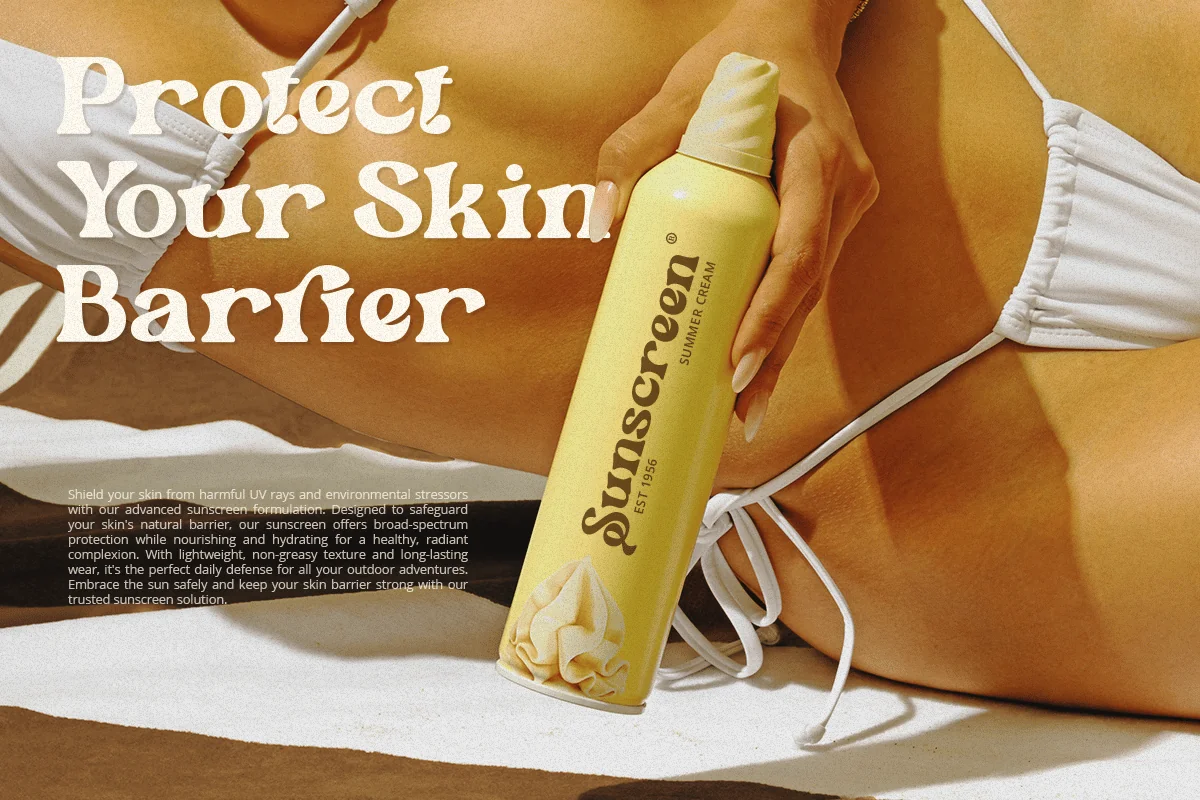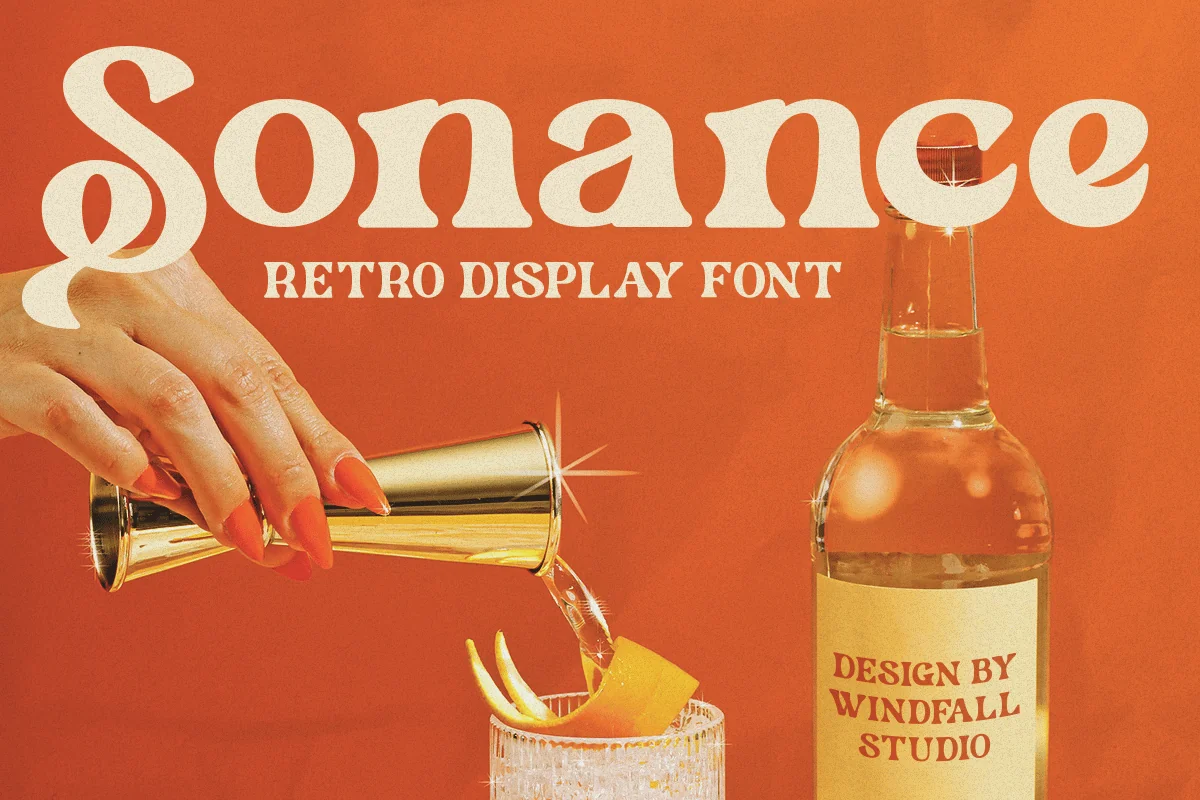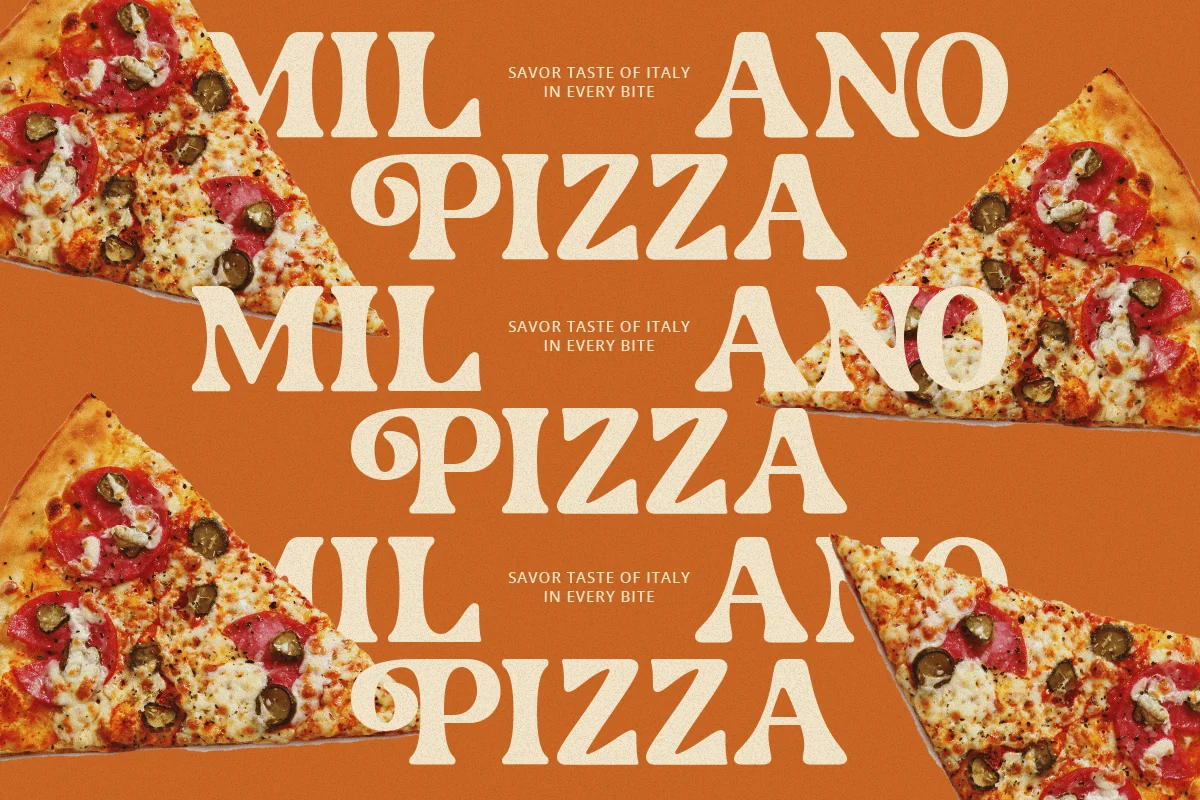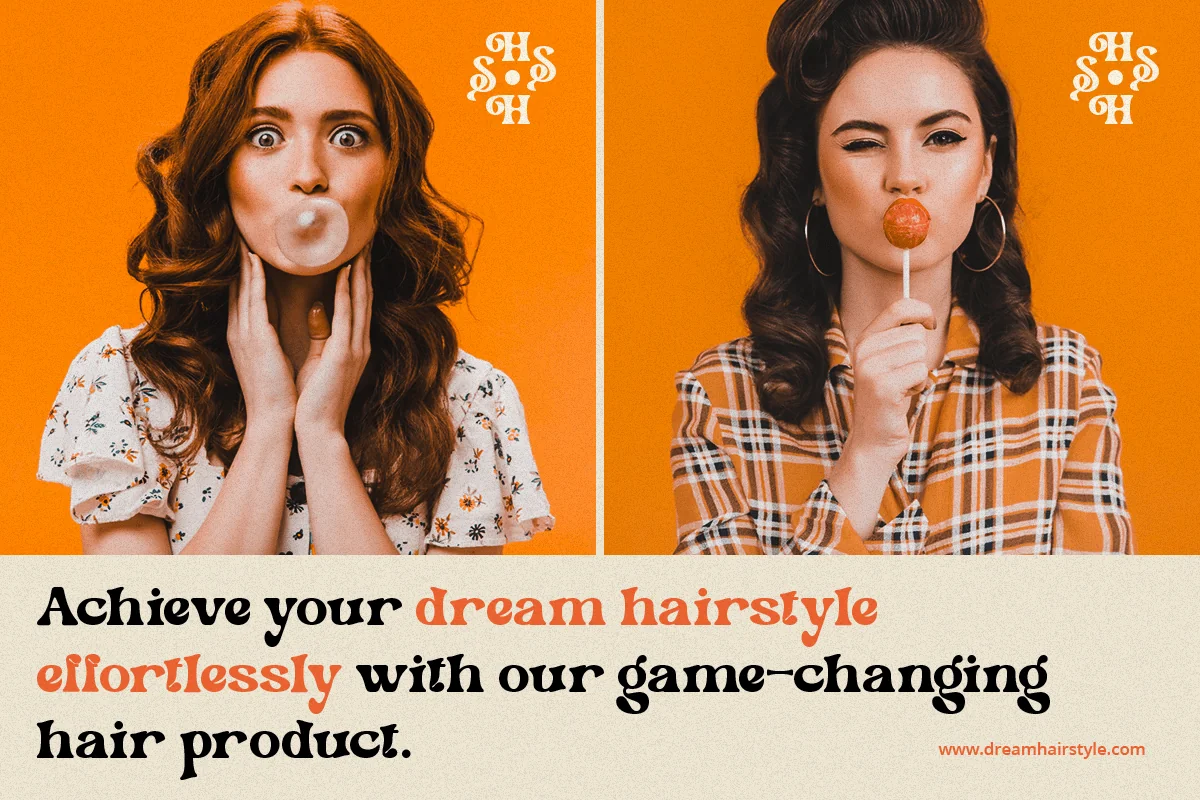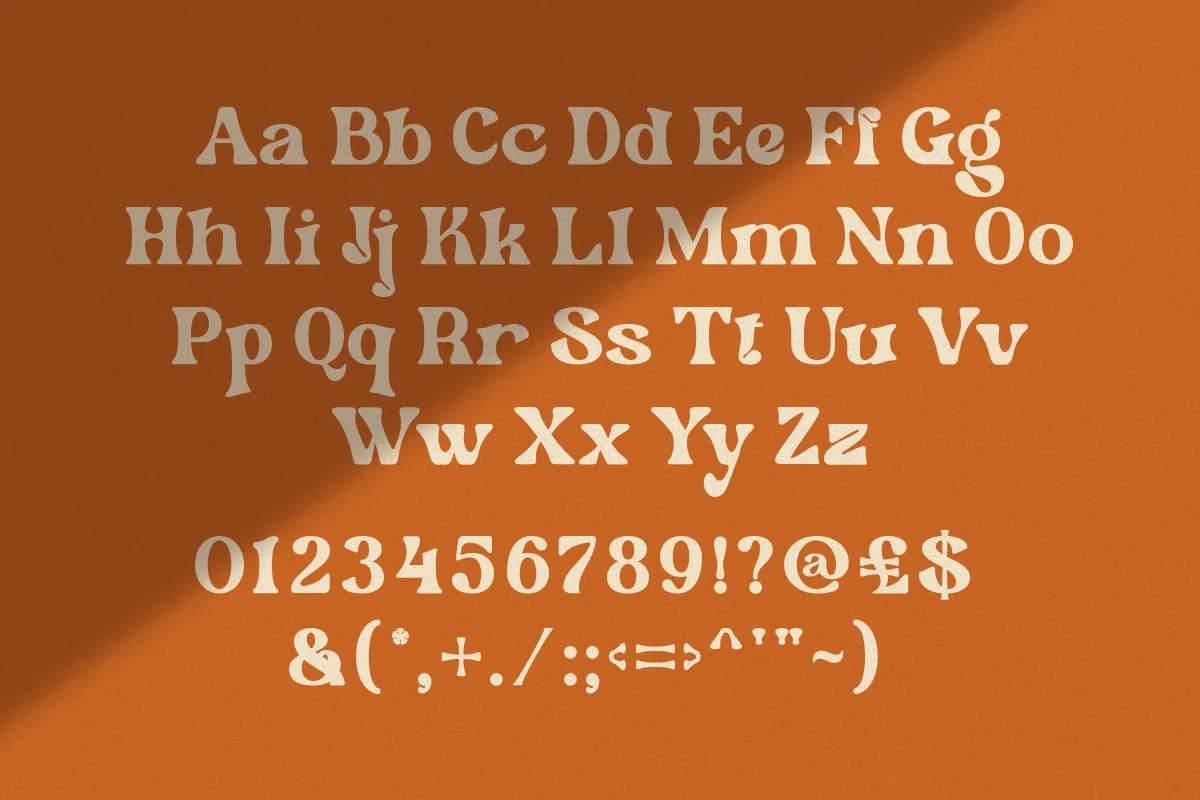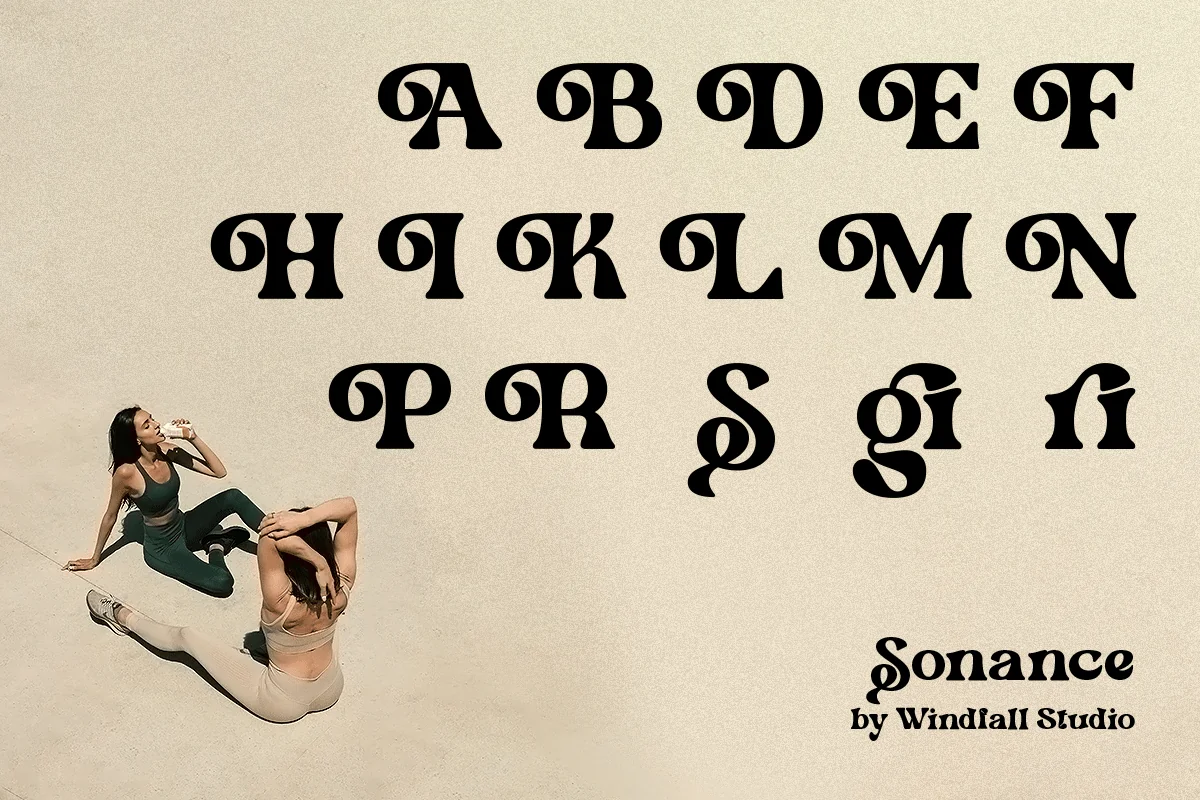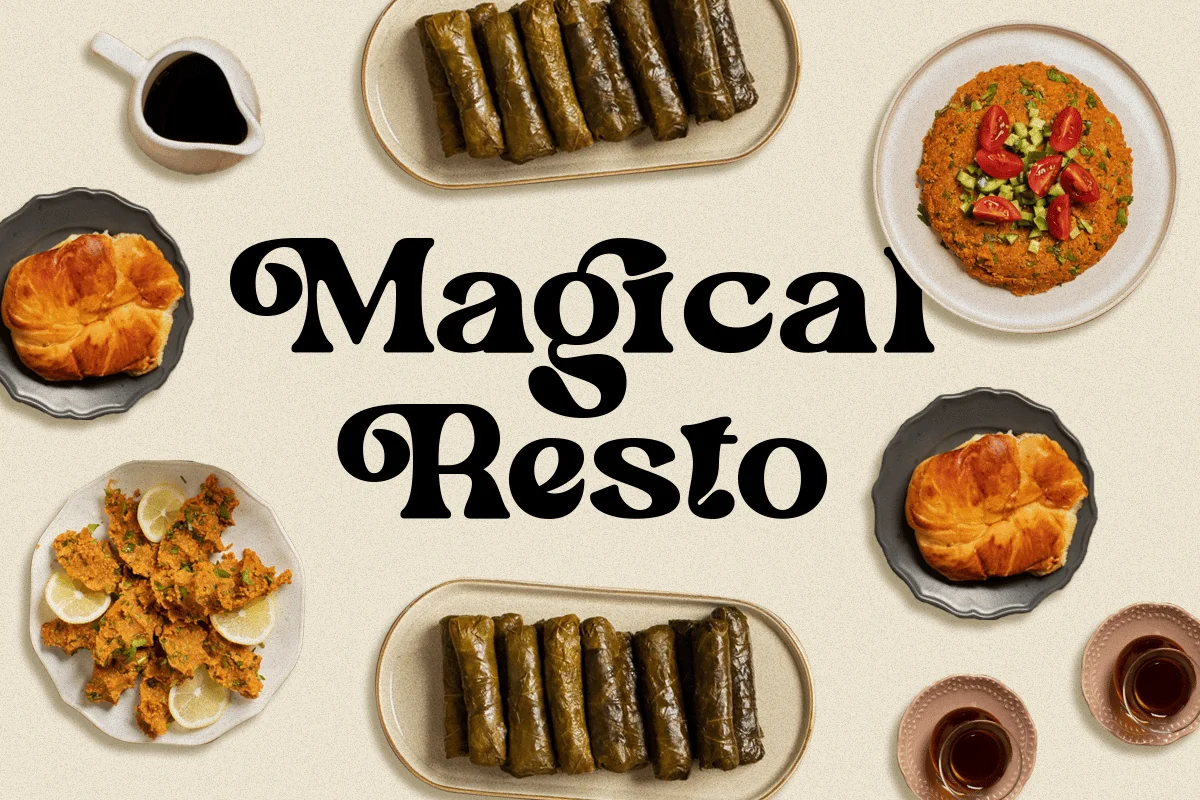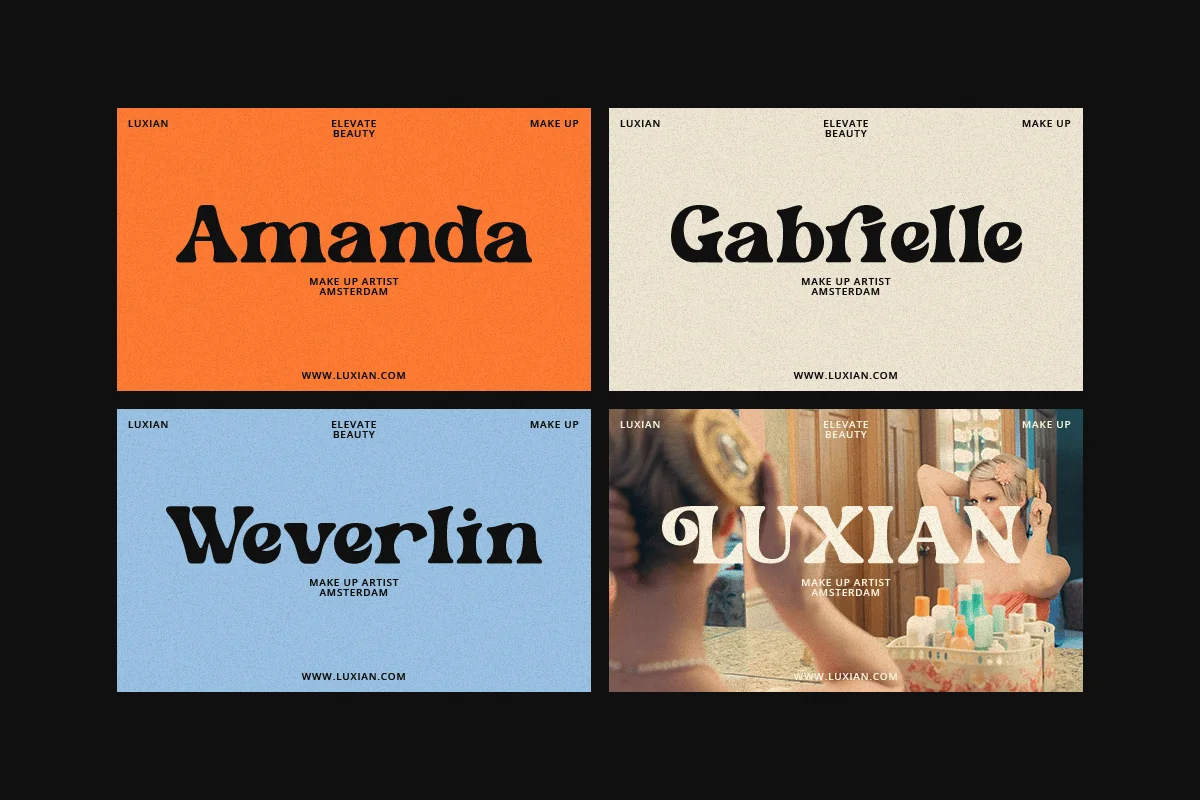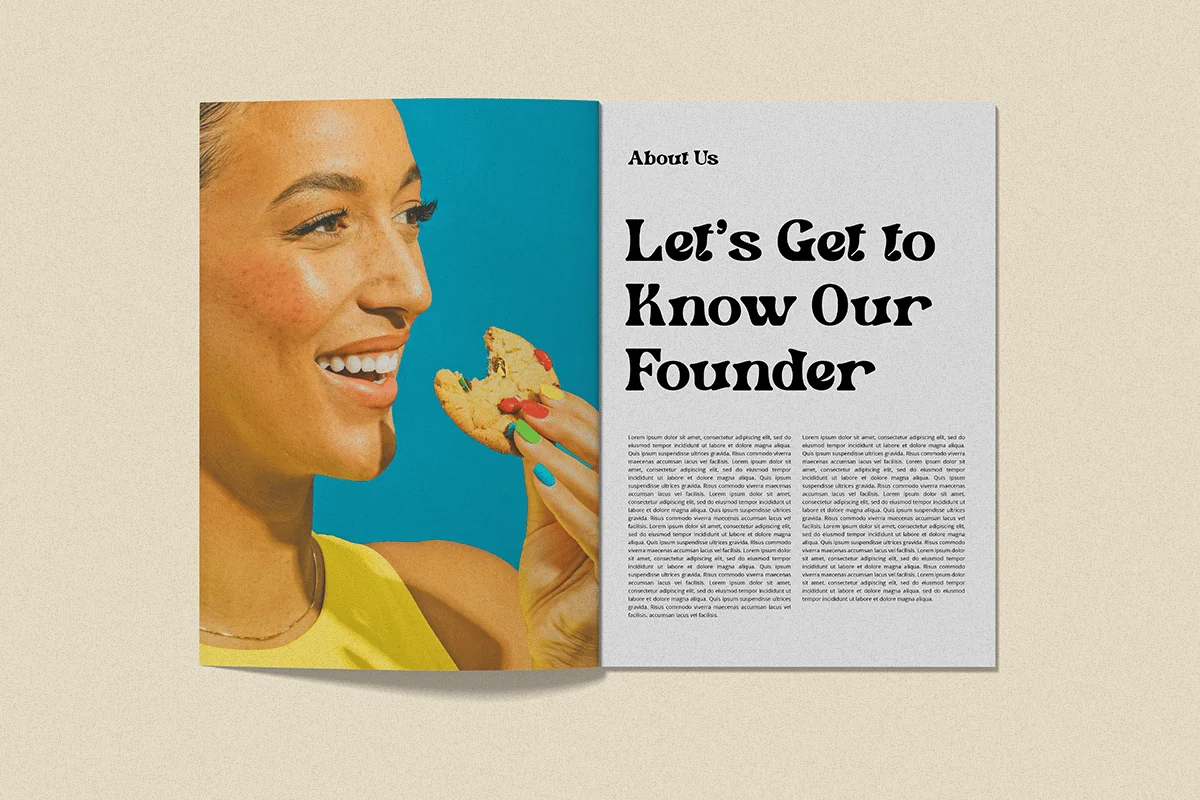
Sonance – Bold Stylish Retro Font
Introducing Sonance, a bold and stylish retro serif font designed by Windfall Studio. Sonance brings the classic vibes of the past with a modern twist, making it perfect for various design projects that require a touch of nostalgia and elegance. This typeface is meticulously crafted to provide versatility and beauty, making your designs stand out effortlessly.
- Full Character Set: Uppercase, lowercase, numerals, punctuation, and special characters
- Stylistic Alternates: Unique alternates for added creativity
- Ligatures: Custom ligatures for a seamless look
- Retro Vibes: Evoking the charm of the 70s and 80s with a contemporary touch
- Versatile Use: Ideal for branding, posters, logos, magazines, headlines, social media, and more
- High-Quality Design: Clean lines and precise curves for a polished look